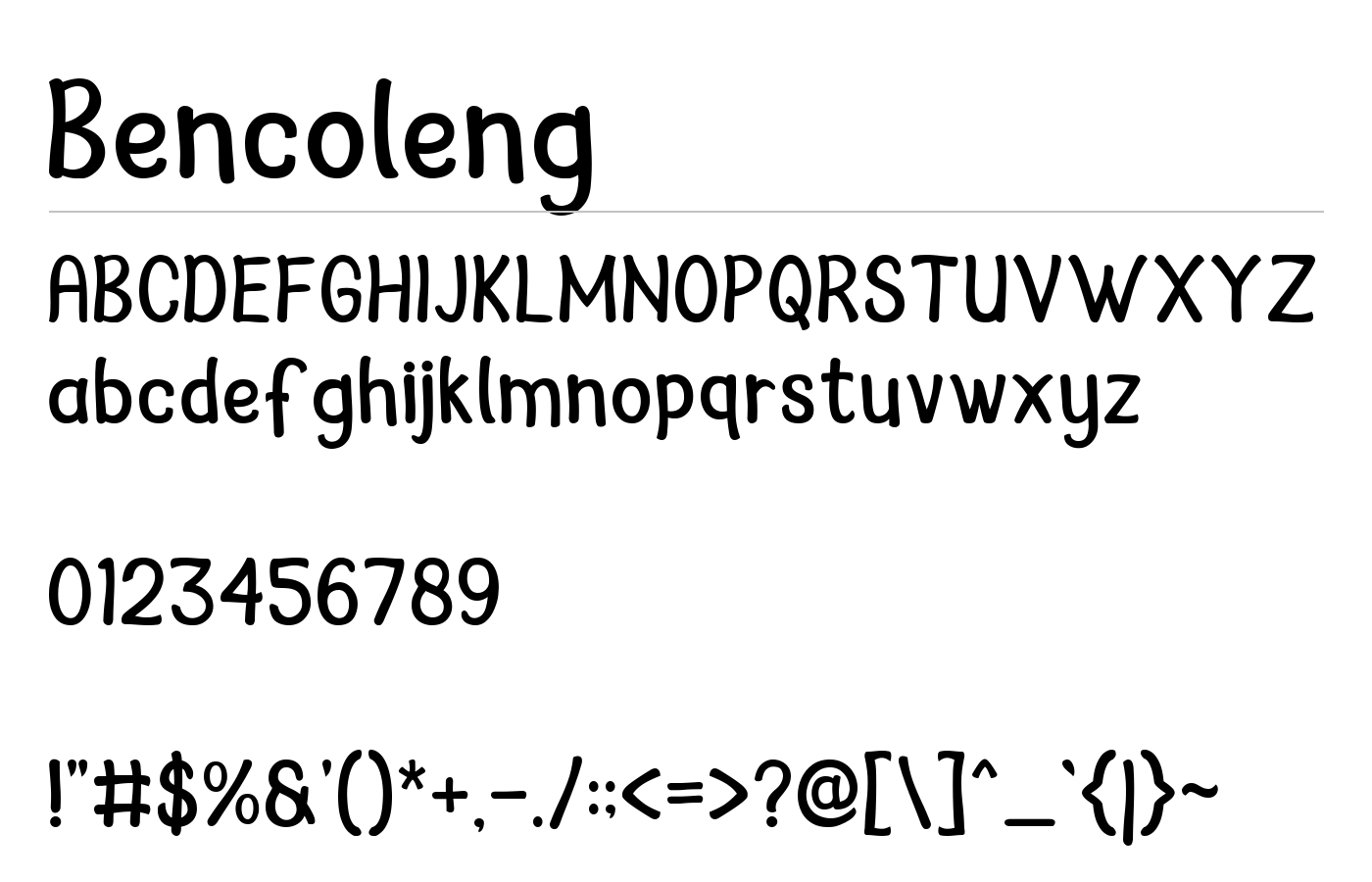
Bencoleng is a playful, casual sans serif font with a hand-drawn feel, featuring slightly irregular strokes and rounded edges that create a friendly and approachable vibe. Its medium weight, upright posture, and open letterforms make it highly readable and perfect for informal designs, children’s materials, or creative branding that seeks warmth and personality. This font works best in logos, packaging, and headlines where a relaxed, inviting character is desired.
Bencoleng Font
About Bencoleng Font
| Font family | Bencoleng Font |
| Release date | 2019-05-07 |
| Designer | azmilbahar |